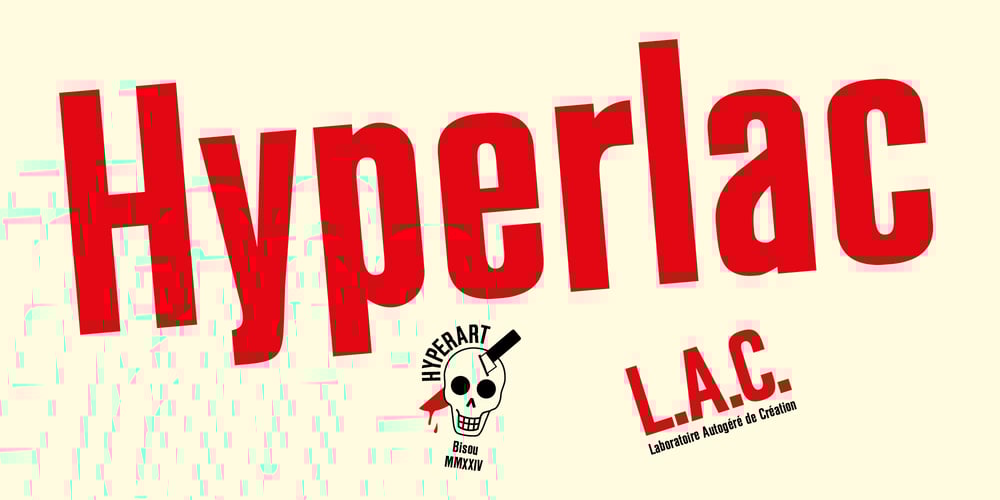
Hyperlac Font Family was designed by Mathias Antonietti and published by Bisou. Hyperlac contains 1 styles and family package options. Designed in La Chaux-de-Fonds, Switzerland, the Hyperlac typography is a tribute to ten years of life in the L.A.C. squat. It’s based on stamps found in an uninhabited house, then inhabited for 7 years by Bisou and his friends. The stamps were used to make the cute-punk posters for the concerts organized by the collective. The new version keeps the punch of its history, Hyperlac is an impactful and cheeky typeface, modern and versatile.When it came to redesigning the stamps, Bisou discovered some surprisingly sweet details that make this typeface rich in discreet subtleties. These little variations make it human and warm. The digital version makes it perfect for record sleeve titles or concert posters.